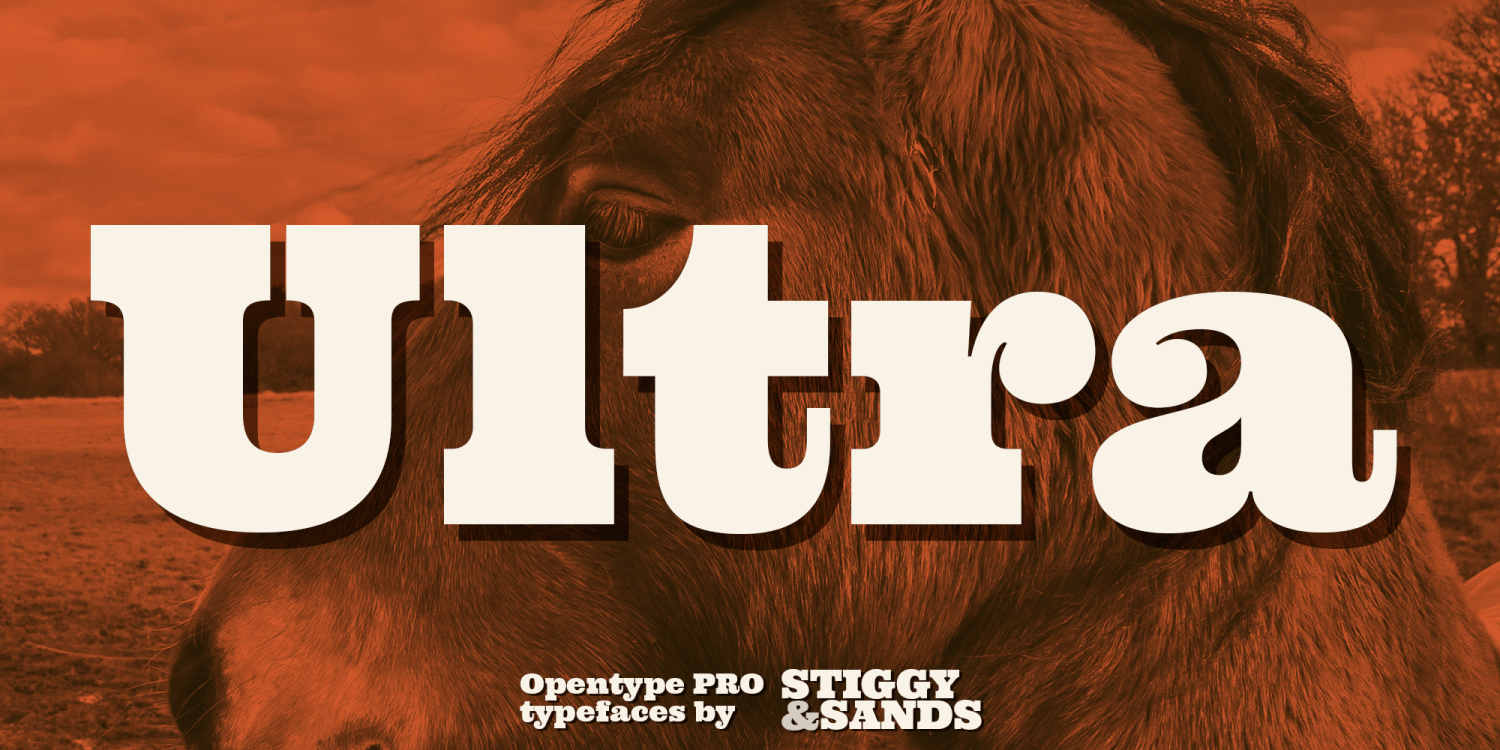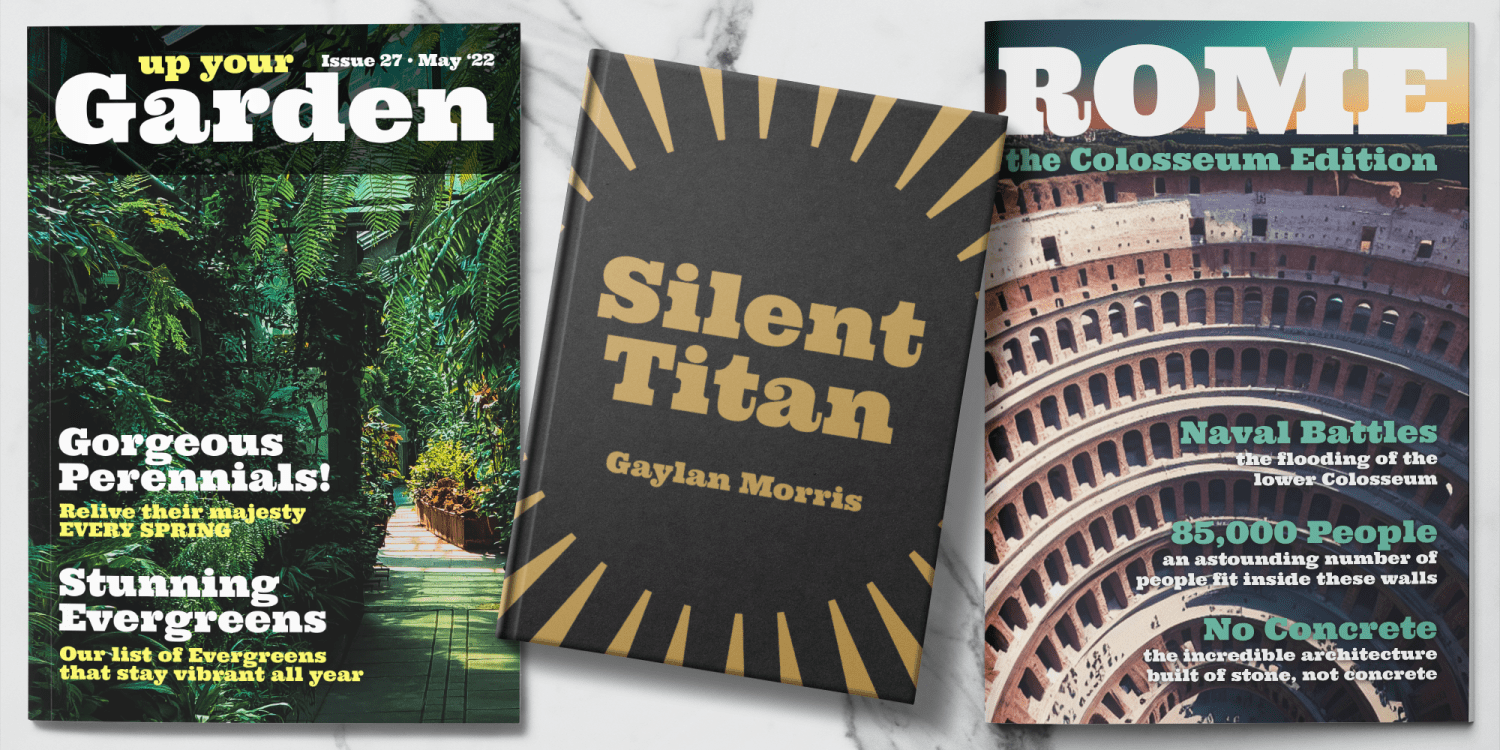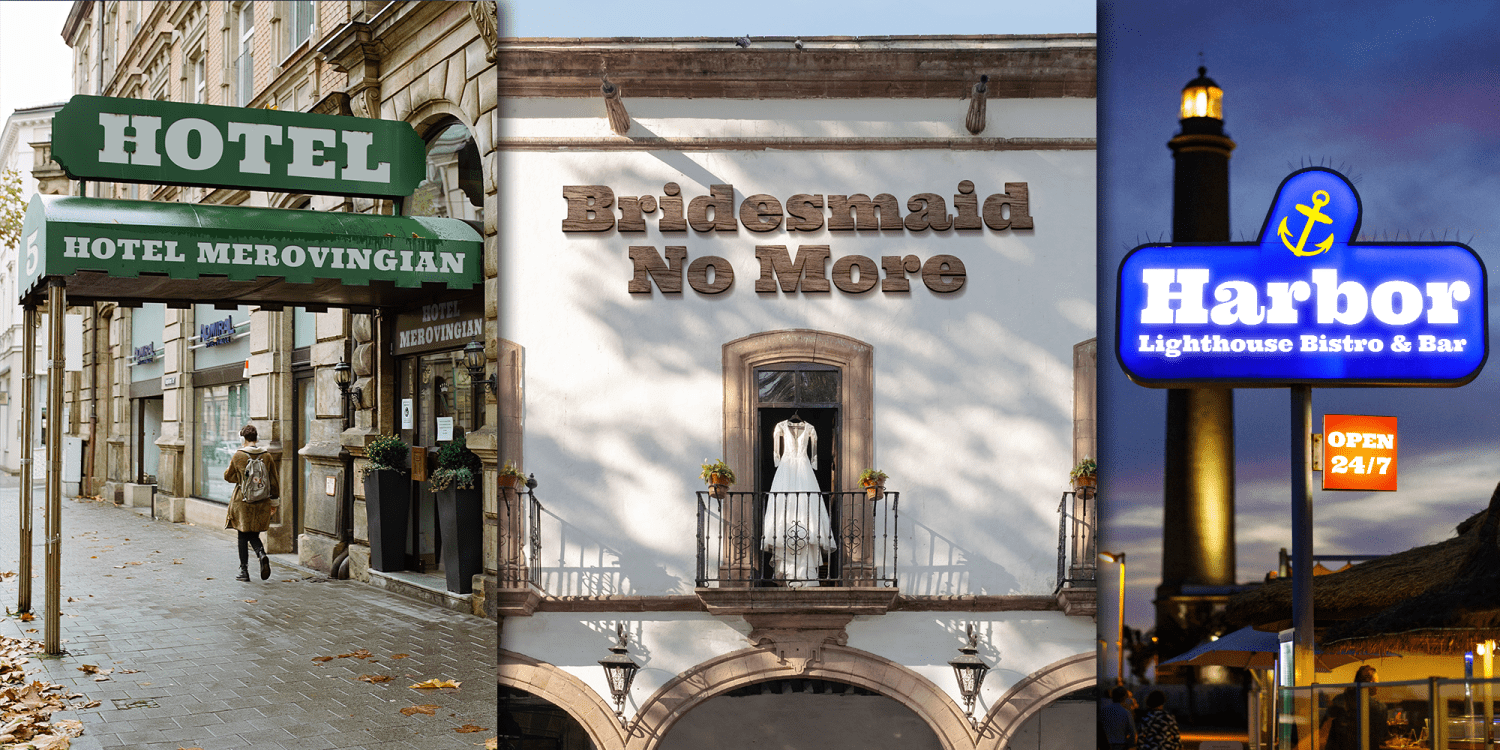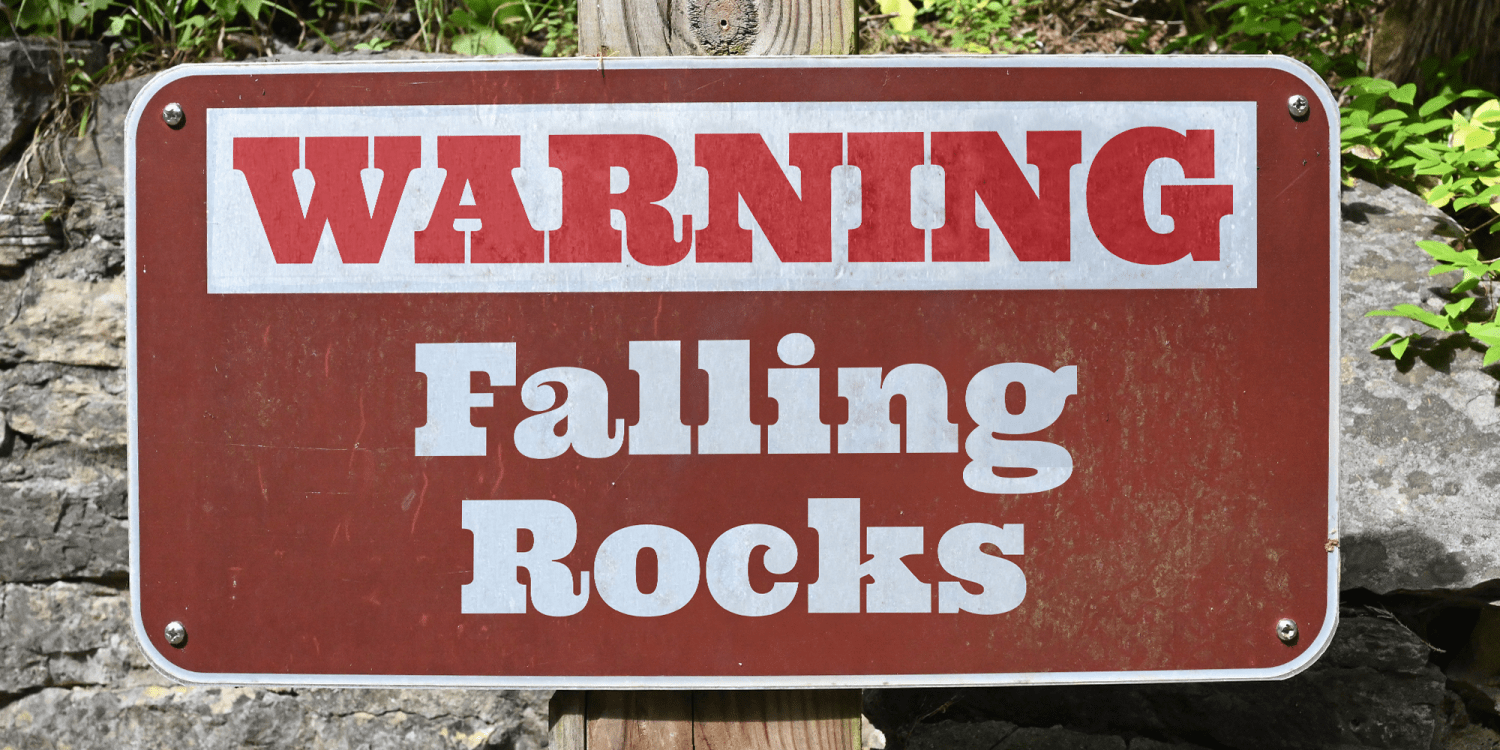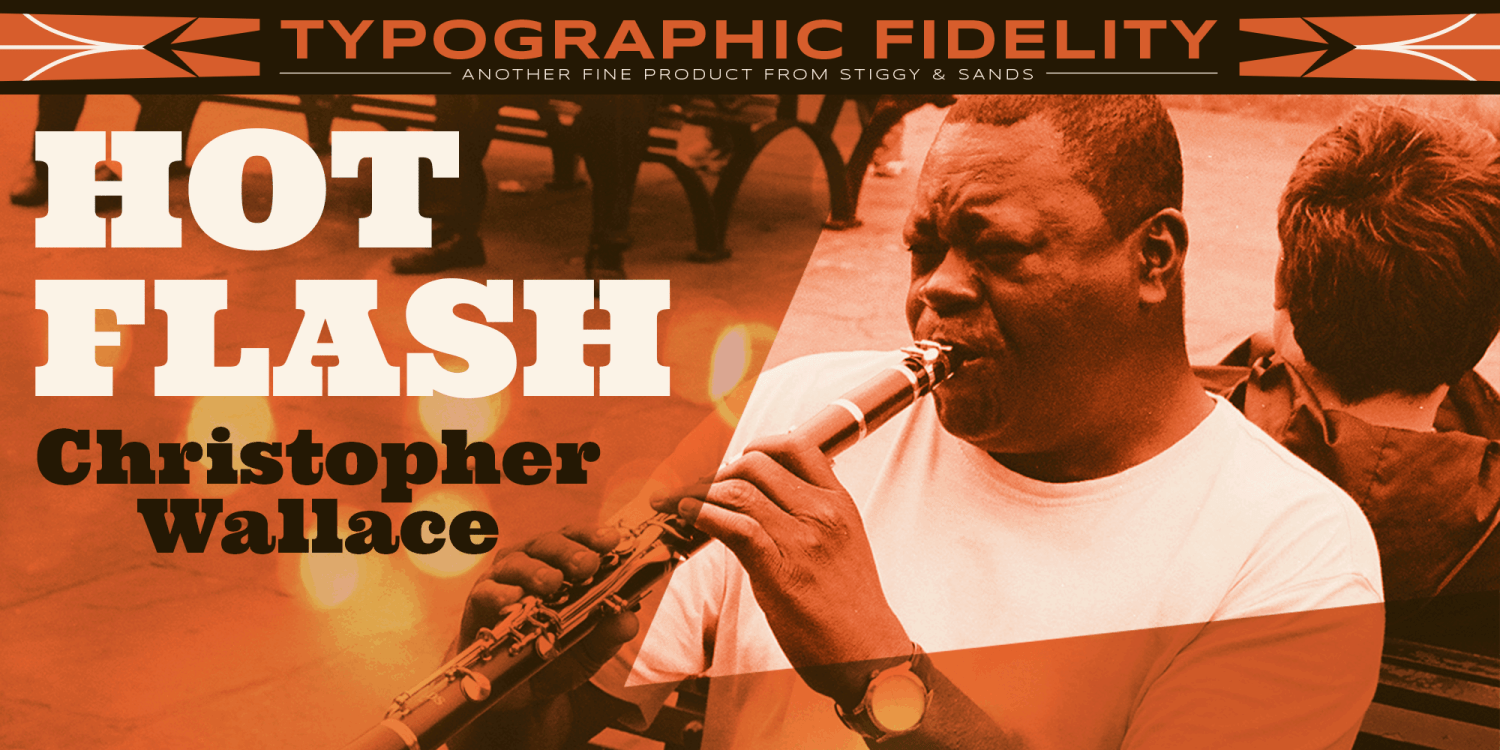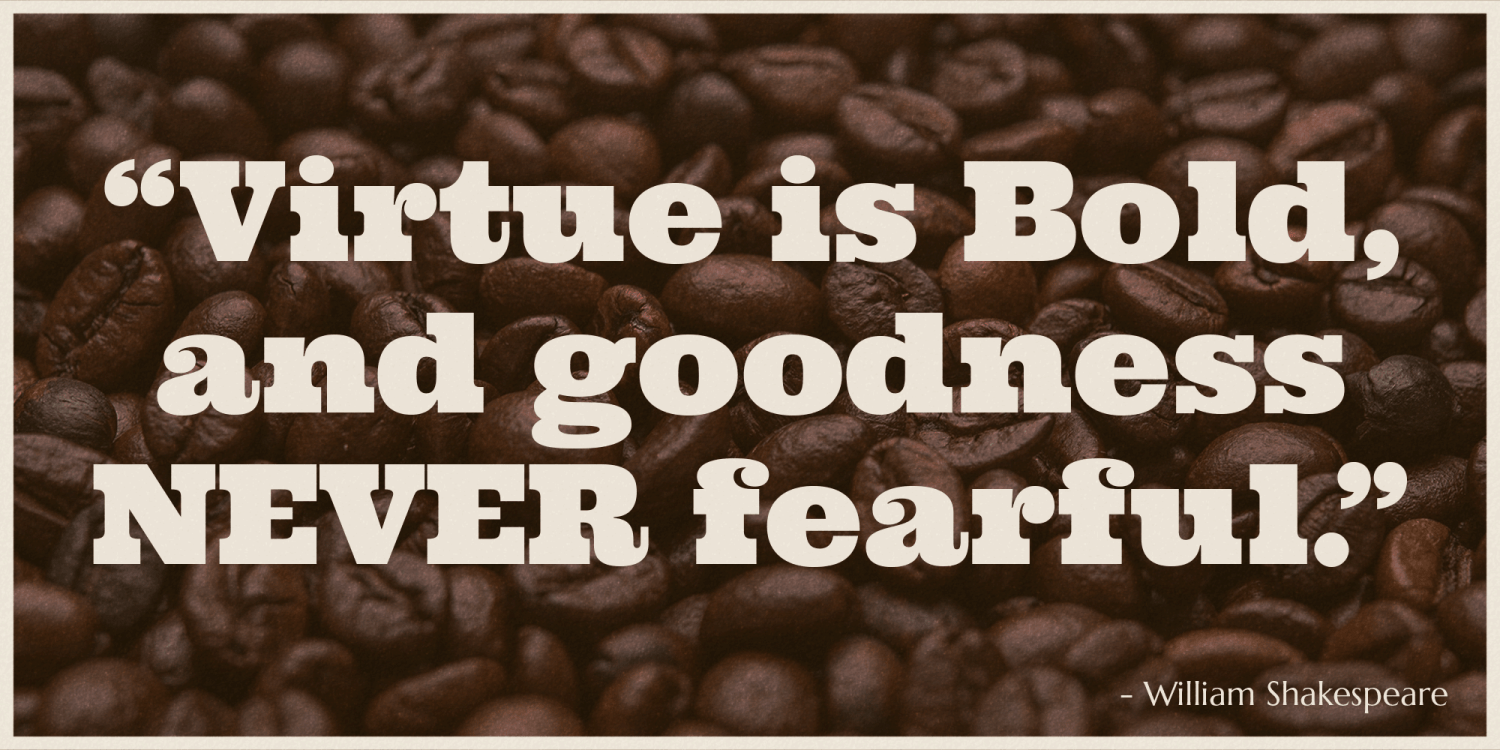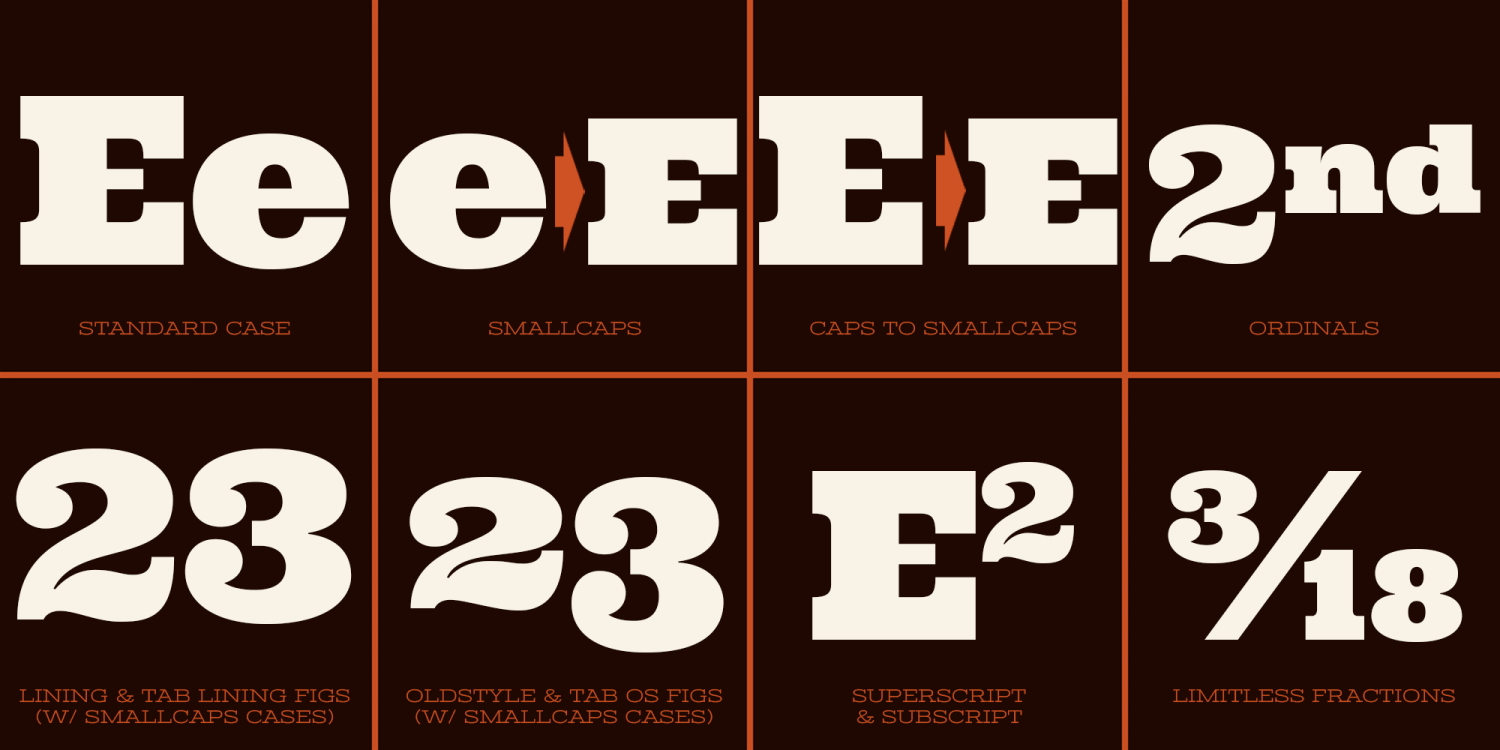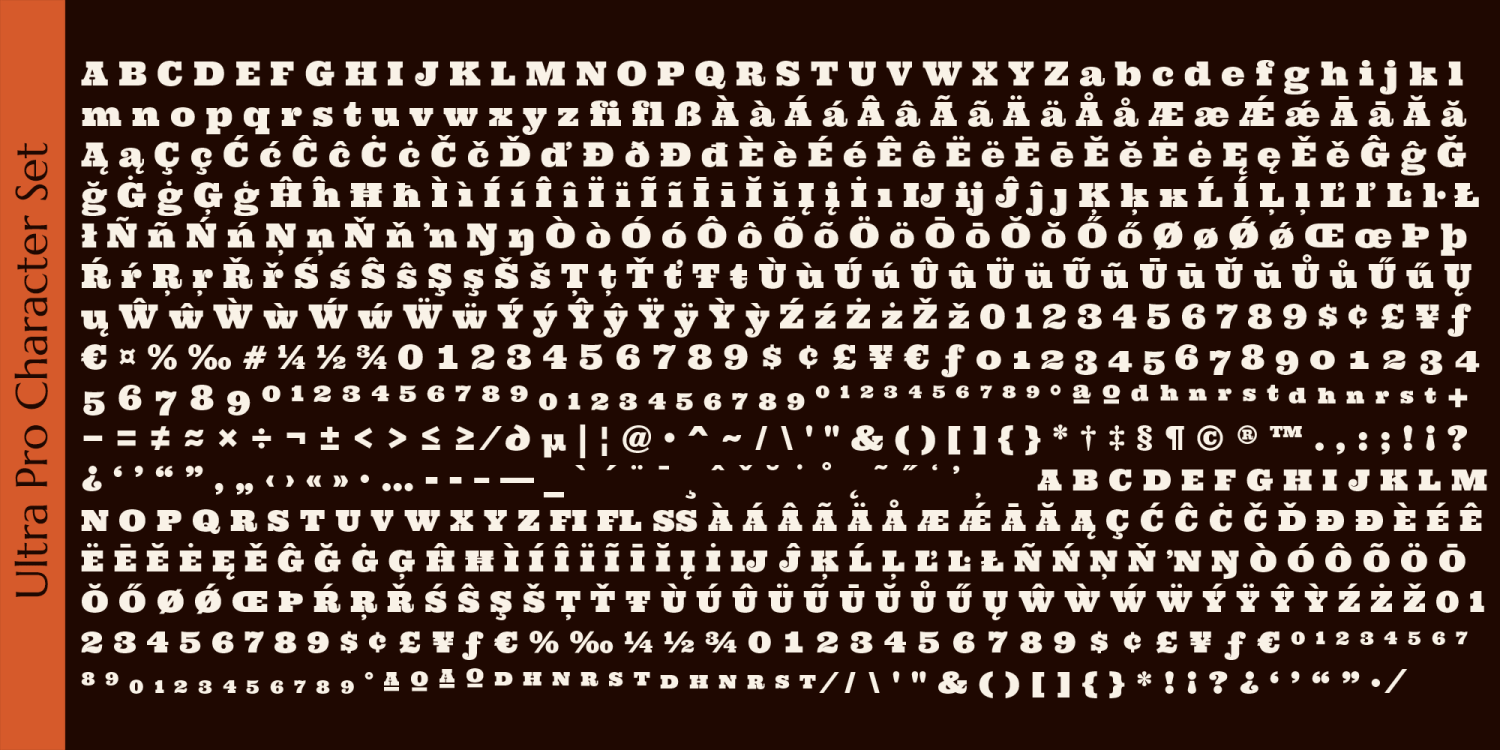
Ultra Pro
Font Family by Stiggy & Sands
Buy NowOur Ultra Pro is an ultra bold slab typeface with nods to wood type styles like Clarendon and Egyptian. Its powerful and dramatic letterforms are both serious in form but friendly in appearance yet it is still easily legible. Perfect for power headlines and titling for impact, the SmallCaps and extensive figure sets only work to further expand the usefulness of the typeface across a wider gamut of design options.
Opentype features include:
- SmallCaps.
- Full set of Inferiors and Superiors for limitless fractions.
- Tabular, Proportional, and Oldstyle figure sets (along with SmallCaps versions of the figures).
- Stylistic Alternates for Caps to SmallCaps conversion.